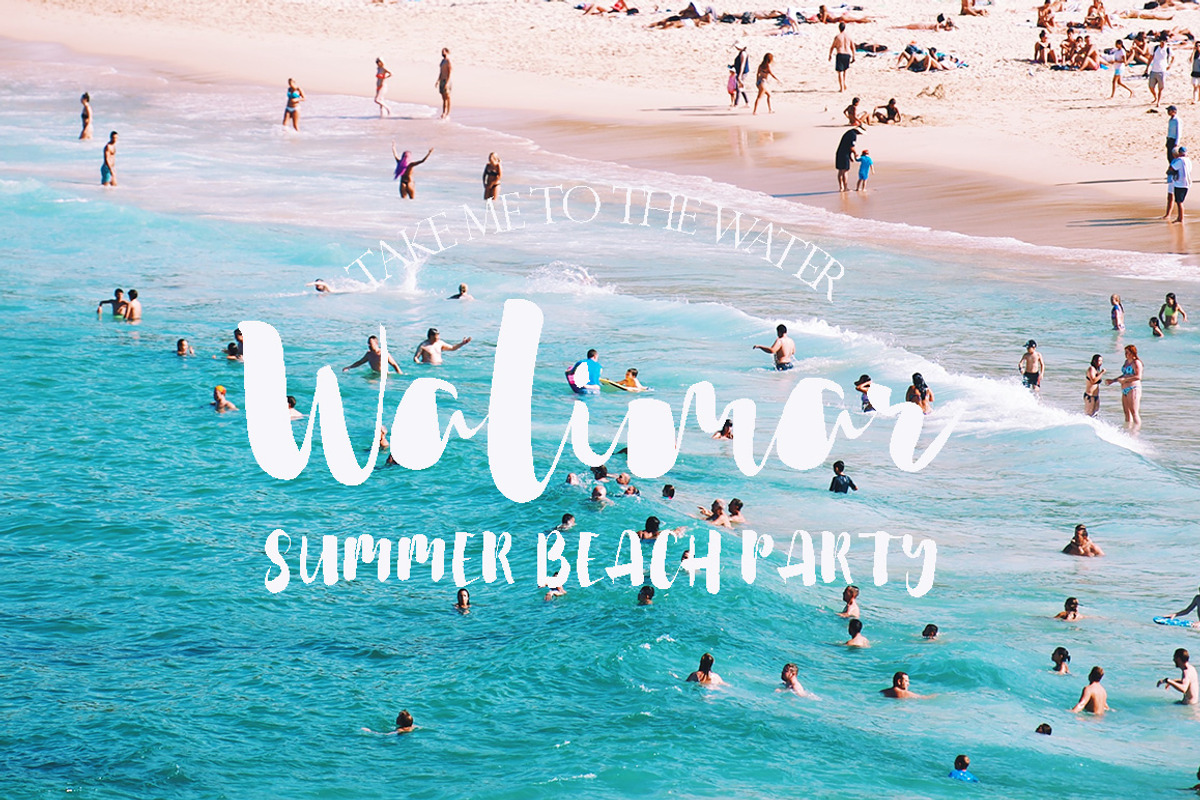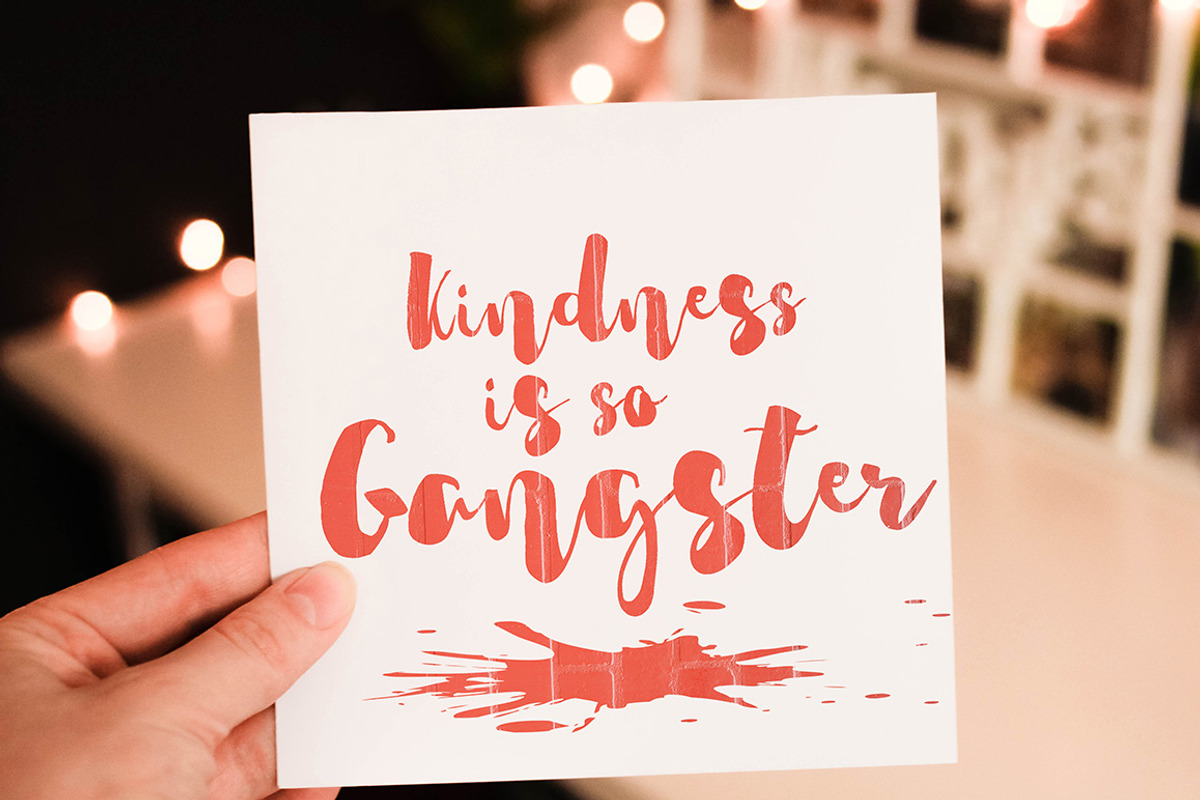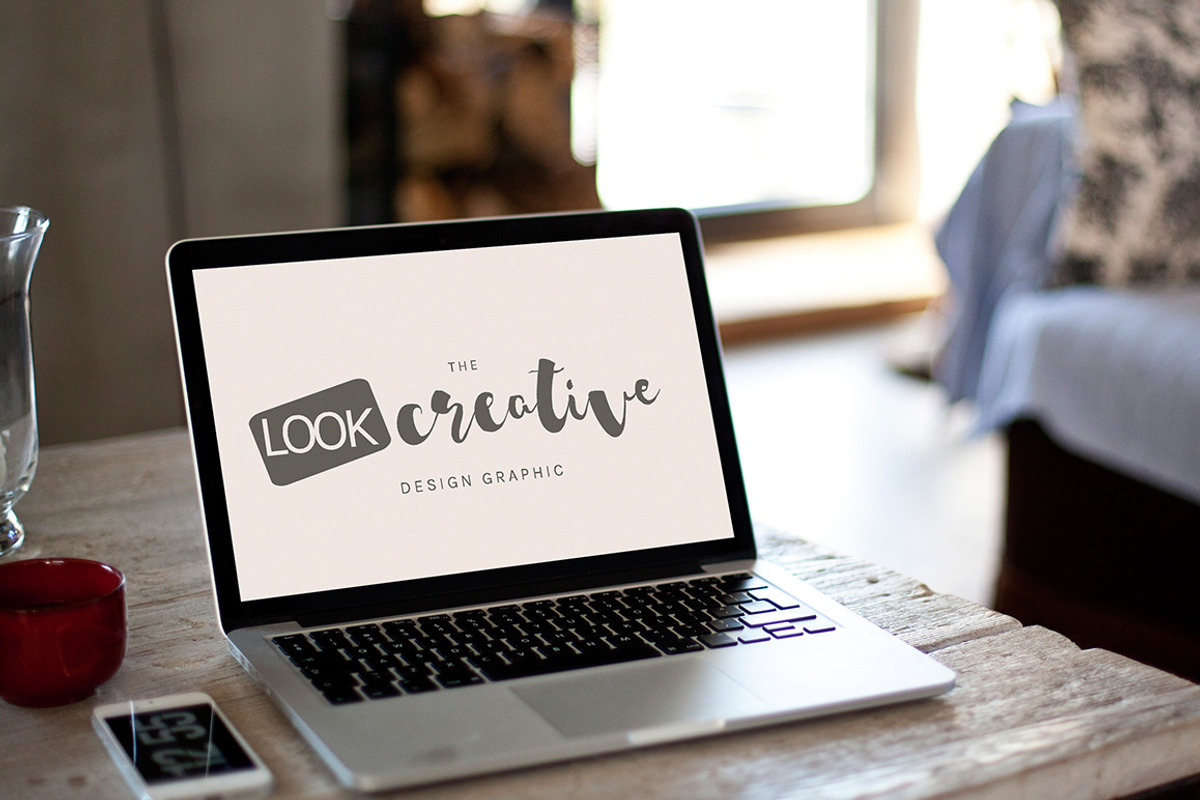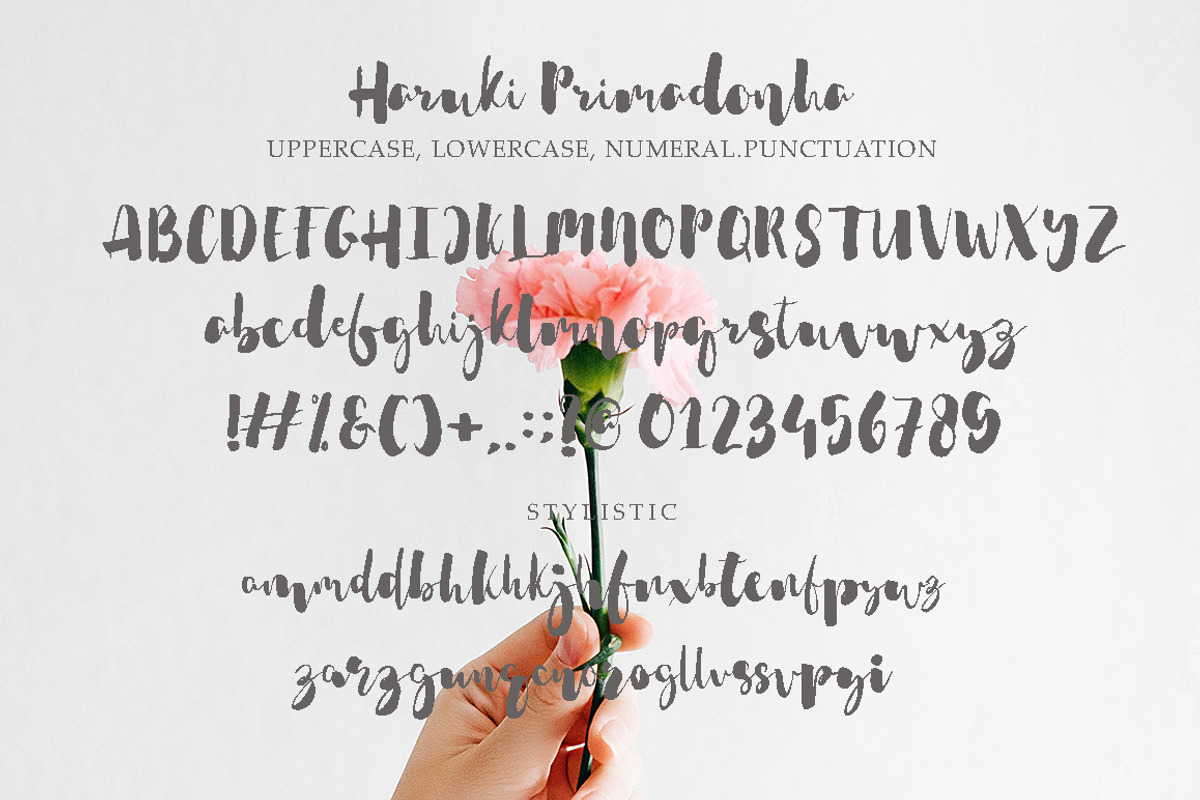
Haruki Primadonha
Haruki Primadonha is modern script font. With modern script style this font will perfect for many different project ex: quotes, blog header, poster, wedding, branding, logo, fashion, apparel, letter, invitation, stationery, etc.